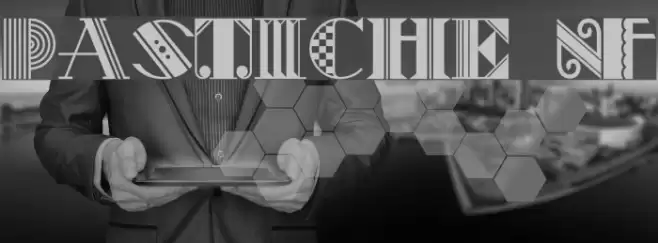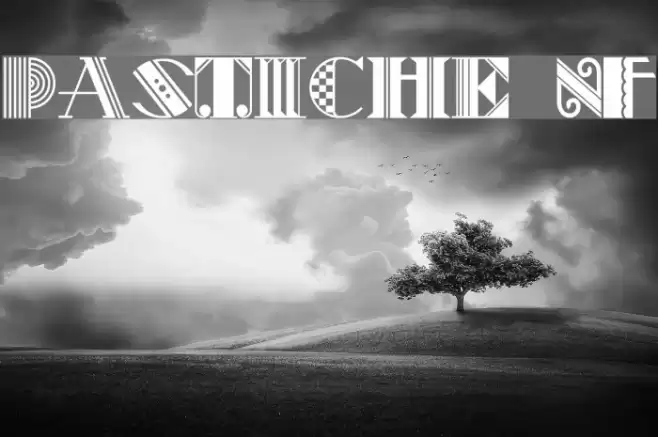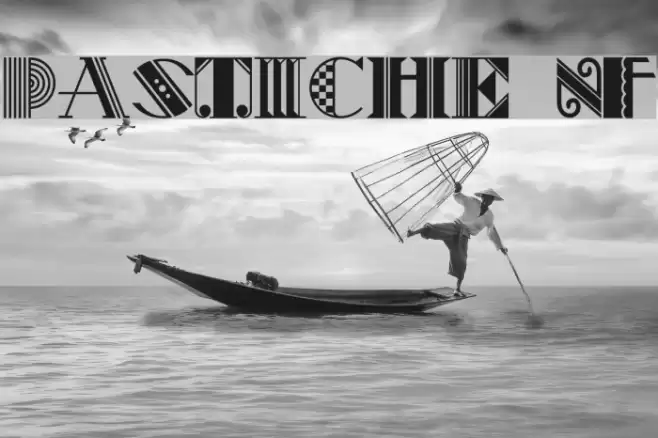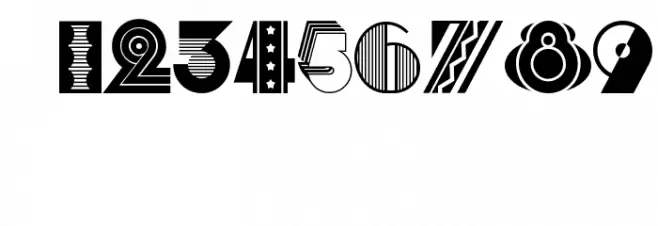
Pastiche NF Font
Pastiche NF Description
This font is a vibrant and eclectic display typeface that combines various decorative elements, creating a visually striking and playful appearance. Each character is uniquely designed with patterns, stripes, and motifs reminiscent of Art Deco and vintage styles. The uppercase letters are bold and feature intricate details, while the numbers carry similar decorative themes, making them stand out. This font is ideal for projects that require a touch of retro flair and artistic expression. Its unique style makes it suitable for creative and eye-catching designs.
A vibrant, eclectic display typeface with Art Deco and vintage influences from Uncategorized fonts.
- Proposed Projects: Ideal for posters, album covers, branding, and any project needing a retro or artistic touch.
- Overall Style: Vintage, Decorative